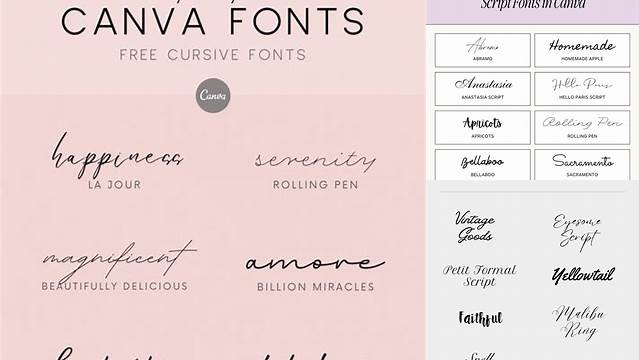
Best Elegant Cursive Fonts In Canva: Your Ultimate Guide
Hey design enthusiasts! If you're anything like me, you're always on the hunt for that perfect font to elevate your projects. And when it comes to adding a touch of elegance, sophistication, or a dash of personality, cursive fonts are your secret weapon. Luckily, Canva is a treasure trove of amazing fonts, including a fantastic selection of cursive options. In this article, we'll dive deep into the world of the best elegant cursive fonts in Canva, helping you choose the perfect typography for your next design endeavor. We'll explore the characteristics of each font, discuss their ideal use cases, and offer tips on how to pair them effectively to create visually stunning masterpieces. So, let's get started, shall we?
Understanding Cursive Fonts: The Foundation of Elegance
Before we jump into the font recommendations, let's quickly recap what makes a cursive font so special. Cursive fonts, often referred to as script fonts, are designed to mimic handwriting. They typically feature flowing, connected letterforms, which can range from formal and calligraphic to more casual and playful styles. The beauty of cursive fonts lies in their ability to convey emotions and personality. They can add a touch of romance, sophistication, or a personal touch to any design. Choosing the right cursive font is crucial, as it can significantly impact the overall mood and message of your project. Think about the feeling you want to evoke. Do you want to project elegance, or perhaps a more relaxed and friendly vibe? This will help you narrow down your choices.
When browsing through Canva's font library, you'll notice a wide variety of cursive fonts, each with its unique style. Some fonts boast elaborate swirls and flourishes, perfect for wedding invitations or high-end branding. Others offer a simpler, more modern approach, suitable for blogs, social media graphics, or even website headlines. Understanding the nuances of each font style is key to selecting the perfect match for your needs. The font's weight (e.g., light, regular, bold) and size also play a crucial role in the overall readability and impact. Always ensure your chosen font is legible, especially when used in body text. Additionally, consider the context of your design. A formal font may not be the best choice for a casual event flyer, and vice versa. So, let's take a look at some of the top picks!
Top Elegant Cursive Fonts in Canva
Now, for the main event: the best elegant cursive fonts in Canva. These fonts have been carefully selected based on their aesthetic appeal, versatility, and overall impact. They are guaranteed to add that touch of elegance your designs need. I've included a diverse range of styles to cater to various design needs. From classic calligraphic fonts to more contemporary options, there's something for everyone.
Playlist Script: This font is a true classic, known for its elegant and flowing script. Its delicate curves and graceful letterforms make it perfect for wedding invitations, greeting cards, and any design that calls for a touch of romance and sophistication. Playlist Script works particularly well in larger sizes as a headline or in smaller sizes for a signature. Pair it with a clean, sans-serif font for the body text to create a beautiful contrast. Its timeless design will make your project unforgettable.
Dancing Script: Dancing Script is a cheerful and informal cursive font that's full of personality. It's perfect for adding a playful and friendly touch to your designs. Its slightly uneven strokes and bouncy baseline give it a hand-drawn feel that's both approachable and inviting. This font is great for creating logos, social media graphics, or any design where you want to project a sense of fun and approachability. Use it for quotes, captions, or to create a friendly and inviting atmosphere.
Great Vibes: If you want a formal, calligraphic look, then Great Vibes is the font for you. This elegant font boasts beautiful, flowing letterforms and intricate details, making it ideal for adding a touch of luxury to your designs. It is an excellent choice for creating high-end branding materials, wedding invitations, or any project that requires a sophisticated and refined aesthetic. Use it for headings, names or accents to make your project visually captivating.
Allura: Allura is a stylish and modern cursive font that strikes a perfect balance between elegance and readability. It features a slightly more condensed design, with a modern touch, and a smooth flow. This makes it versatile enough to be used in a variety of design contexts, from website headers to branding materials and social media posts. It pairs well with both sans-serif and serif fonts, making it incredibly adaptable. Try it on blogs, social media and websites.
Sofia Pro: Although not a cursive font, Sofia Pro complements cursive fonts beautifully, by offering a sans-serif font that's clean, legible, and modern. It's a great option for pairing with any of the cursive fonts mentioned above for body text or subheadings, creating a cohesive and visually appealing design. Its versatility allows it to be used in various contexts, maintaining readability and style.
These are just a few of the many amazing cursive fonts available in Canva. Remember to experiment and find the ones that best match your design vision. Remember, the key is to choose fonts that reflect your project's style and message. Now, let's proceed with tips on how to make the most of them!
Tips for Using Cursive Fonts Effectively
Choosing the right font is just the first step; knowing how to use it effectively is equally important. Here are some essential tips to help you make the most of your chosen cursive fonts and create stunning designs:
Pairing Fonts: Combining cursive fonts with other font types is often essential for creating a balanced and visually appealing design. Generally, it's best to pair a cursive font with a clean, easy-to-read sans-serif or a classic serif font for body text. This contrast enhances readability and prevents your design from appearing cluttered. For example, combine Playlist Script (cursive) with Open Sans (sans-serif) or Times New Roman (serif). Don't be afraid to experiment with different font combinations until you find the perfect balance that complements your project's mood and message. The key is to achieve a harmony between the fonts, where one does not overshadow the other.
Sizing and Spacing: The size and spacing of your cursive font significantly impact its readability and visual appeal. Cursive fonts are often more complex than standard fonts, so it's crucial to use them in larger sizes, especially for headlines or key text elements. Ensure there's enough space between the letters (letter-spacing) and the lines (line-height) to maintain readability. This prevents the text from appearing cramped and difficult to decipher. Adjust the size and spacing based on the context and the overall design, ensuring that the text is easy to read and complements the visual design. When in doubt, prioritize readability.
Color and Background: Color plays a critical role in font design. Ensure your cursive font contrasts well with the background color to ensure readability. Dark fonts look fantastic against a light background, and vice versa. Avoid using cursive fonts on busy or patterned backgrounds, as it can be difficult to read. Consider using a solid background or a subtle gradient to make your text pop. Contrast is essential; consider the mood you want to evoke with the color. Experiment with different color combinations until you find the perfect balance that enhances the visual impact of your design.
Limited Use: Because of the complexity of cursive fonts, it's best to use them sparingly. Overusing cursive fonts can make your design look cluttered and unprofessional. Use them primarily for headlines, titles, or accent text to draw attention to the most important elements. The goal is to create a focal point while maintaining readability. Limit the use to the areas where you want to emphasize elegance, personality, or a unique touch. The more selective you are with its usage, the greater the impact it will have.
Consider the Context: Always consider the context of your design. A formal cursive font might be perfect for a wedding invitation but could be inappropriate for a casual event flyer. The choice of font should align with the overall tone and purpose of your project. Make sure it complements the content and appeals to the target audience. Consider the platform where the design will be viewed (website, social media, print) as this can affect the readability and the overall impact of the design.
Designing with Cursive Fonts: Examples and Inspiration
To further inspire your design journey, let's look at some real-world examples of how cursive fonts are used effectively in various design projects. Seeing these examples can help you grasp the practical applications of these fonts and get your creative juices flowing.
Wedding Invitations: Cursive fonts are a staple for wedding invitations. The use of fonts such as Playlist Script and Great Vibes can add a touch of elegance, romance, and sophistication. They work beautifully for the names of the couple, the date, and other important details. Paired with a classic serif font for body text, a well-designed invitation immediately conveys the event's formality and style. The choice of paper stock, ink color, and embellishments further enhance the overall aesthetic, creating a memorable impression for the guests.
Branding and Logos: Cursive fonts can be used to create unique and memorable logos for brands, especially those targeting a sophisticated or artistic audience. The use of fonts like Allura can add a distinctive touch to brand names or taglines. Often, the logo is paired with a modern sans-serif font to create a contrast between the formal and contemporary, making the logo stand out and be easily recognizable. Color and layout choices are essential to effectively conveying the brand's personality and values.
Social Media Graphics: Cursive fonts are perfect for creating engaging social media graphics. These fonts can be used for quotes, captions, or to add a personal touch to posts. Dancing Script, for example, brings a playful and inviting vibe to graphics. Combine a cursive font with a striking image and a simple sans-serif font for the body, and you've got yourself an eye-catching post. These designs can be used for promoting content, showcasing products, or simply connecting with followers through visually appealing content.
Website Headers and Titles: Using cursive fonts for website headers and titles can create an engaging and visually appealing experience. The use of a beautiful font can grab the reader's attention and draw them into the content. The choice of cursive font must match the website's overall theme and style. Paired with a readable font for the rest of the content, a cursive header can enhance the user experience and make the website feel more elegant and stylish. Make sure the font is large enough to maintain readability and enhance the design.
These are just a few examples of how you can use cursive fonts in your designs. As you can see, the possibilities are endless. Experimenting with different fonts, colors, and layouts is key to discovering what works best for your project.
Conclusion: Unleash Your Creativity with Canva's Cursive Fonts
There you have it, guys! A comprehensive guide to the best elegant cursive fonts in Canva and how to use them effectively in your designs. I hope this article has inspired you to unleash your creativity and create visually stunning projects. Remember to experiment with different fonts, consider your project's context, and always prioritize readability. The key to great design is finding the perfect balance between aesthetics and functionality. So, go out there, start designing, and let your creativity soar!